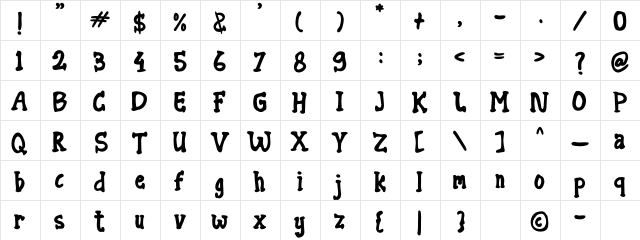
Frankly Regular
Design Context for Frankly Typeface
Frankly is a composed and adaptable typeface that performs quietly and consistently across a wide range of design contexts.